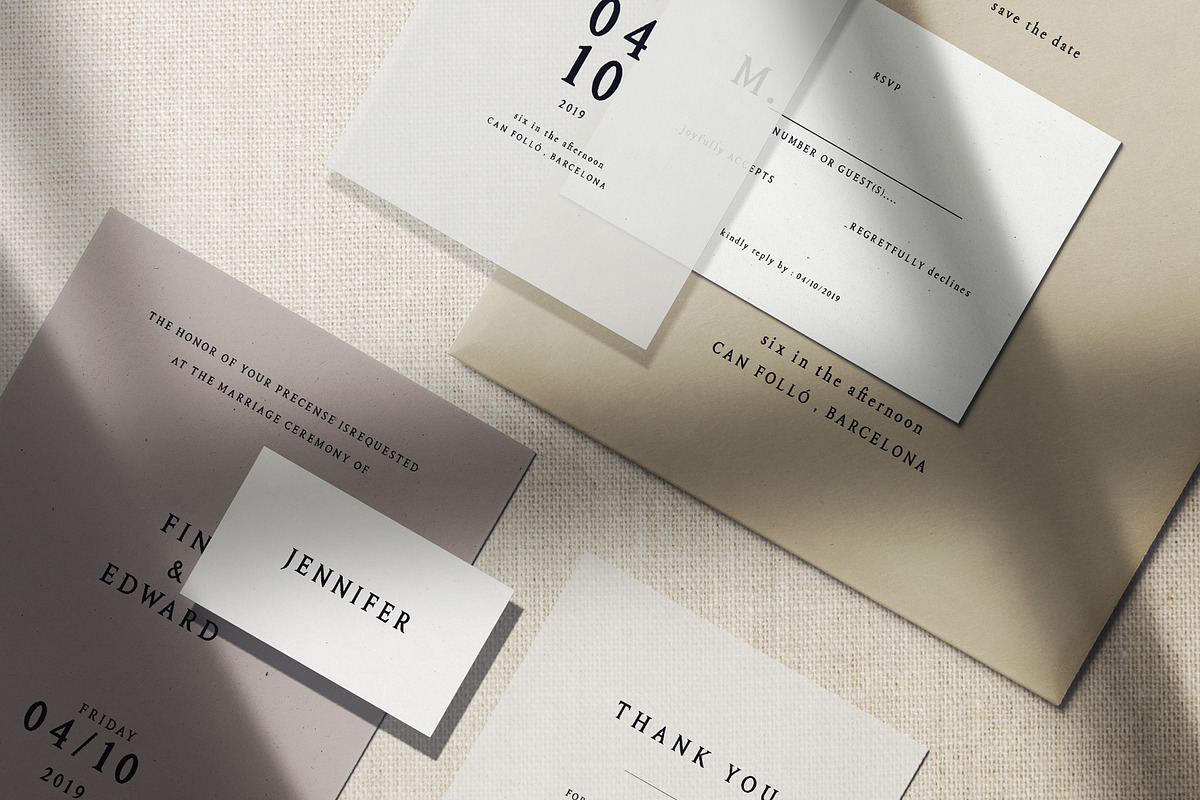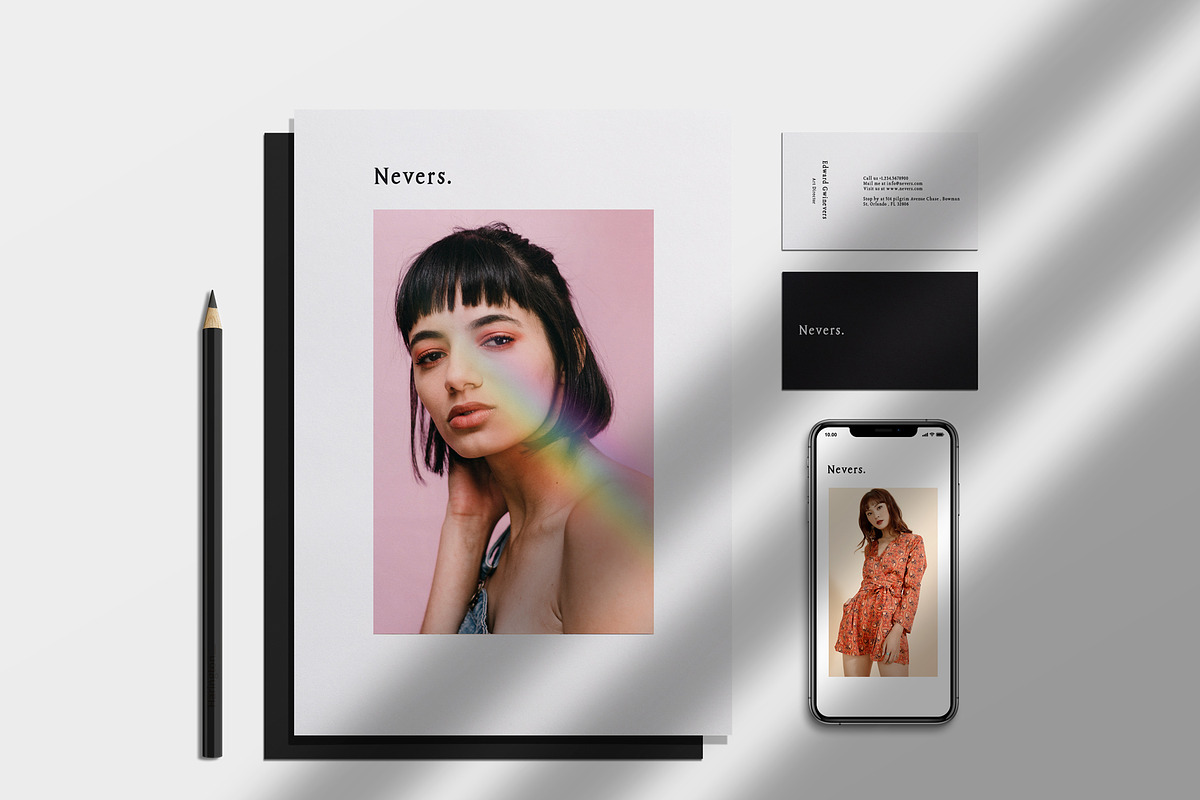
Nevers | Handdrawn Serif
Nevers are elegant and not too stiff handheld serif fonts, which can be used for a variety of your design needs such as posters, logos, branding, magazines, or just for collection.
This font consists of uppercase, lowercase, punctuation, symbols supporting multiple languages, alternative characters and ligature.
Featured :
- Alternative character
- multi language support